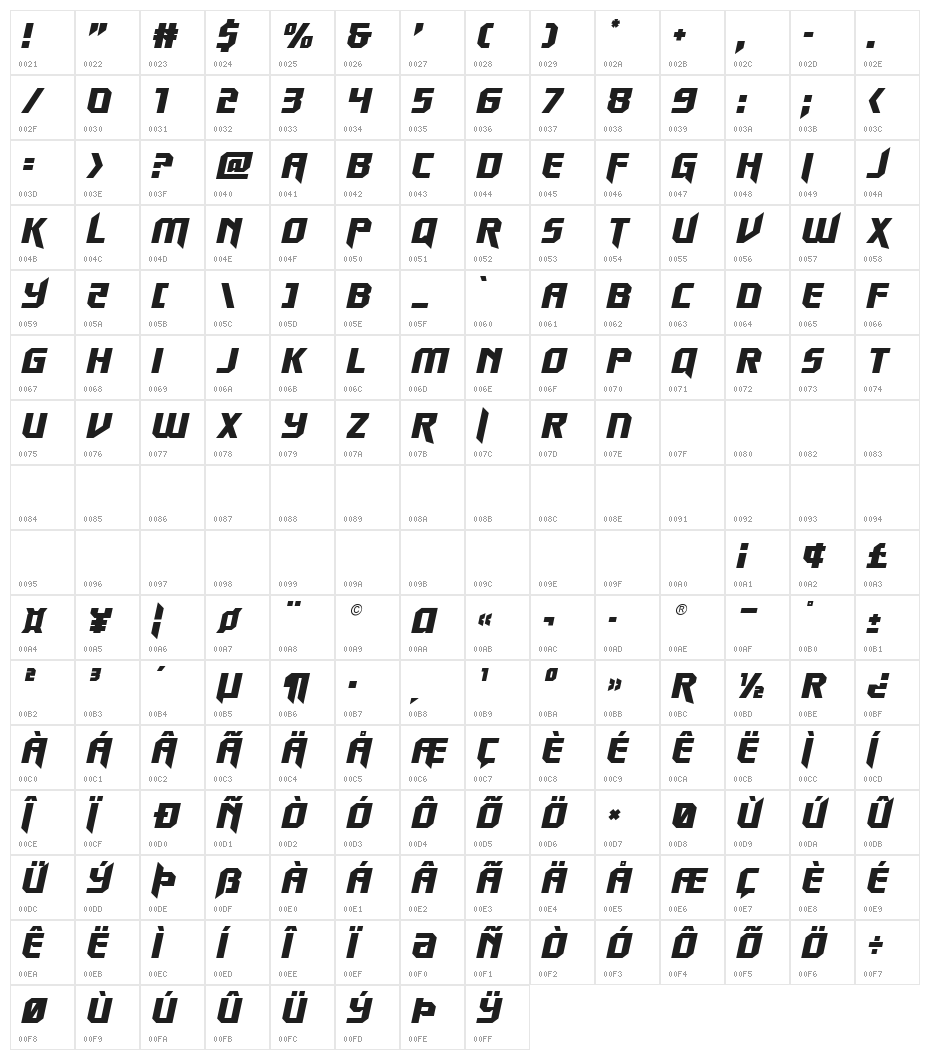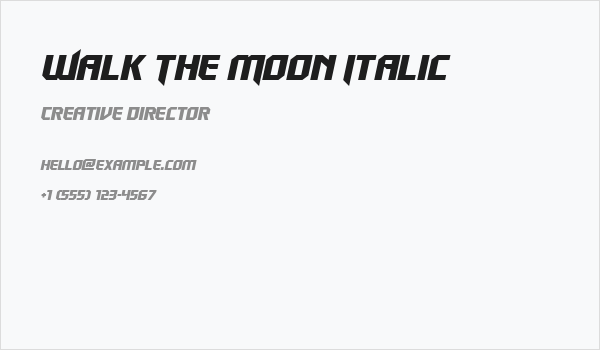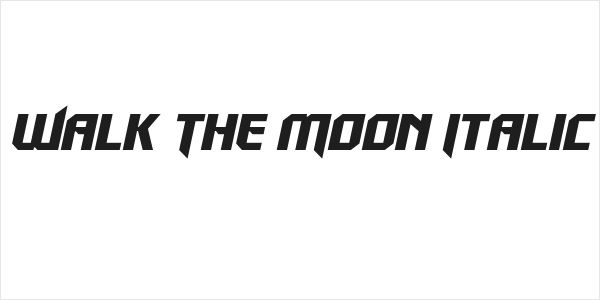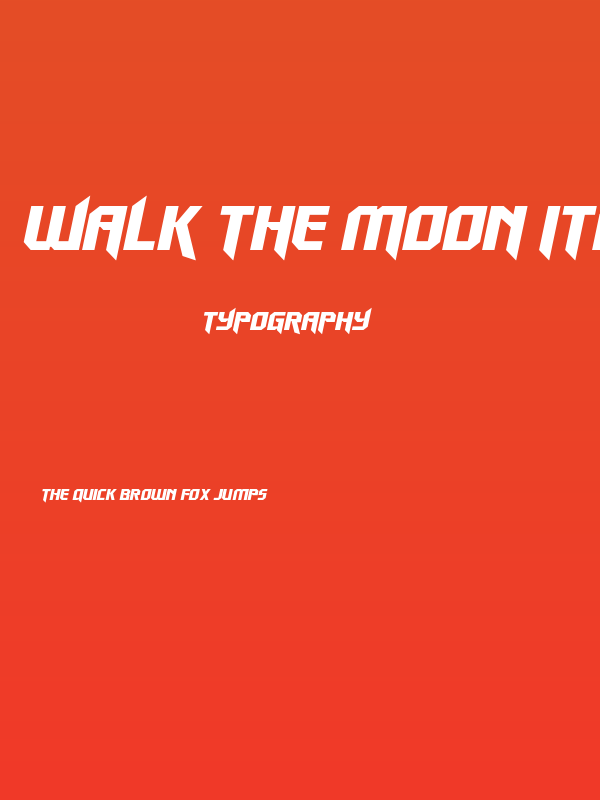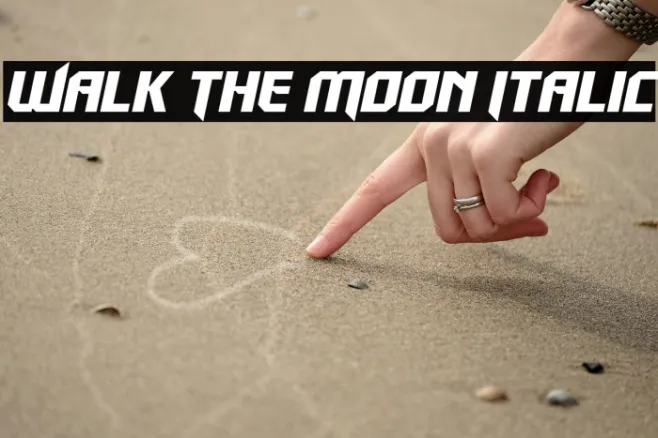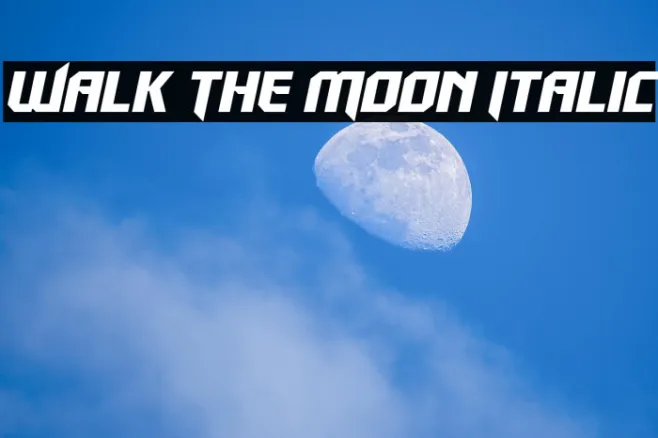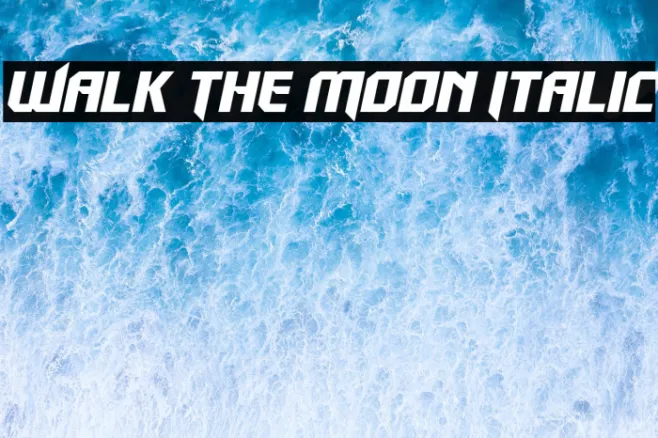
Walk The Moon Italic Font
Walk The Moon Italic Description
This font features a bold and dynamic design with a distinct italic slant, giving it a sense of motion and energy. The characters are angular and geometric, with sharp edges and a futuristic feel. The uppercase and lowercase letters maintain a consistent style, while the numerals and special characters complement the overall aesthetic. The font's boldness and unique style make it suitable for impactful designs that require a modern and edgy look.